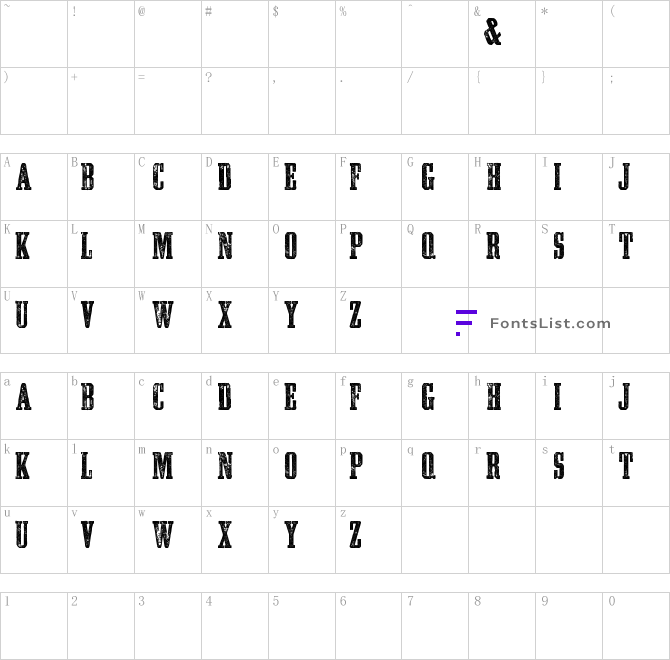
- Font Name:Ashwood Condensed WF
Ashwood-Condensed-WF.ttf is a very beautiful artistic font, Ashwood-Condensed-WF.ttf is widely used in the design and printing of various books and pictures,Ashwood-Condensed-WF.ttf has a strong visual impact,Ashwood-Condensed-WF.ttf is a commonly used font in newspapers, magazines and books, and is used in posters, e-commerce Poster design, store design, logo design, font design and other fields.Ashwood-Condensed-WF.